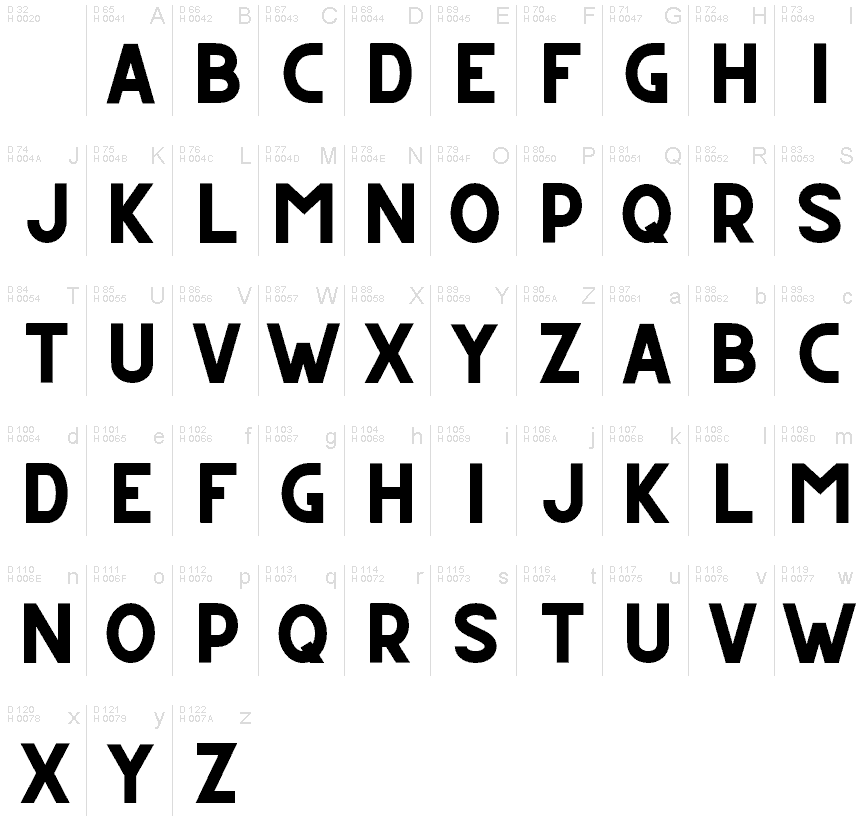
CS Gordon
CS Gordon font is a versatile sans serif by Craft Supply Co. Its geometric forms and straight lines make it a very clean, modern, minimalistic font with an overall professional appearance.
This free sans serif font has great potential to extend its use for various typography projects. It can be used in brand designs, minimalist magazine spreads, body/type headlines, large social media ads, blogs, digital publications/prints like logo development, posters and board designs.